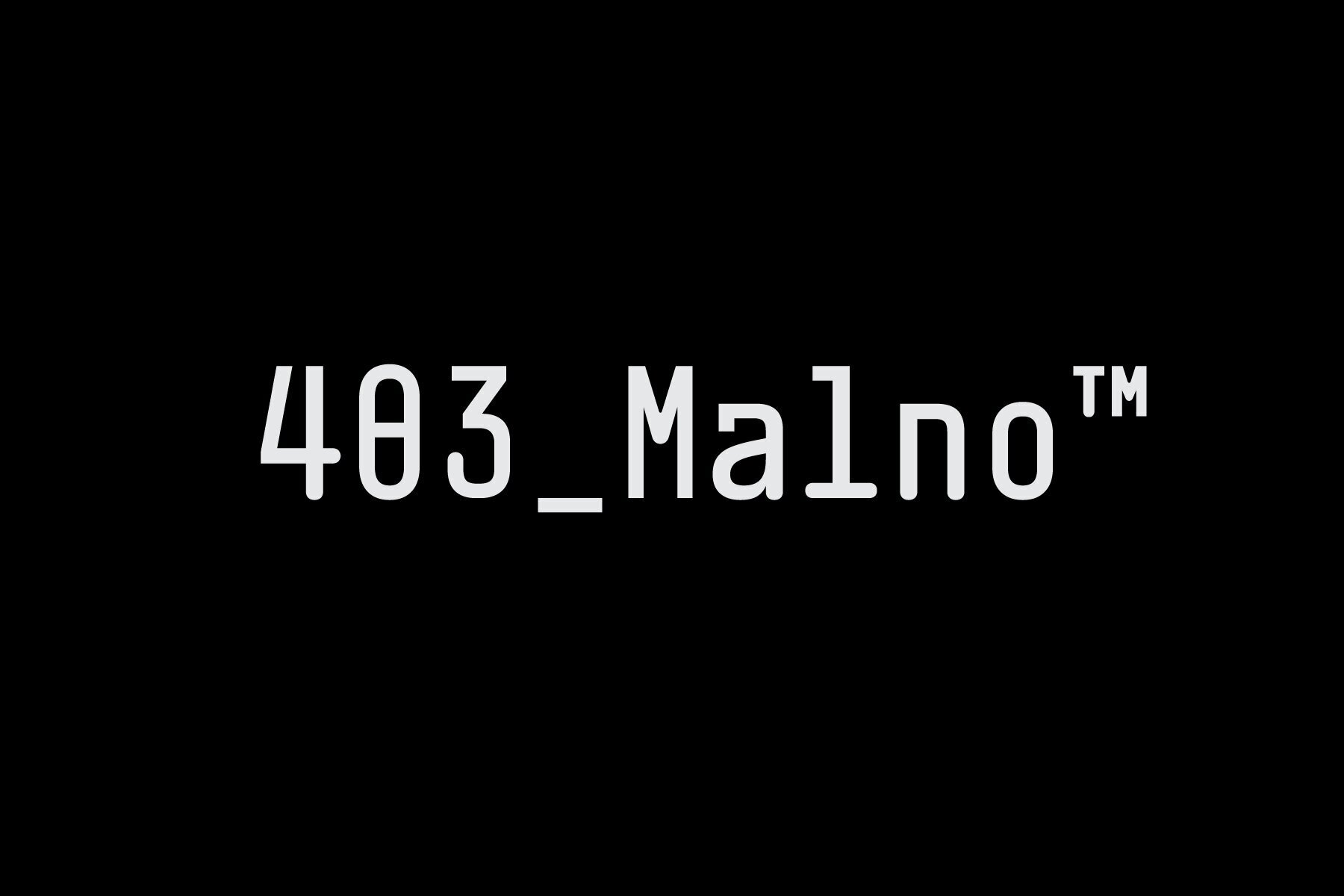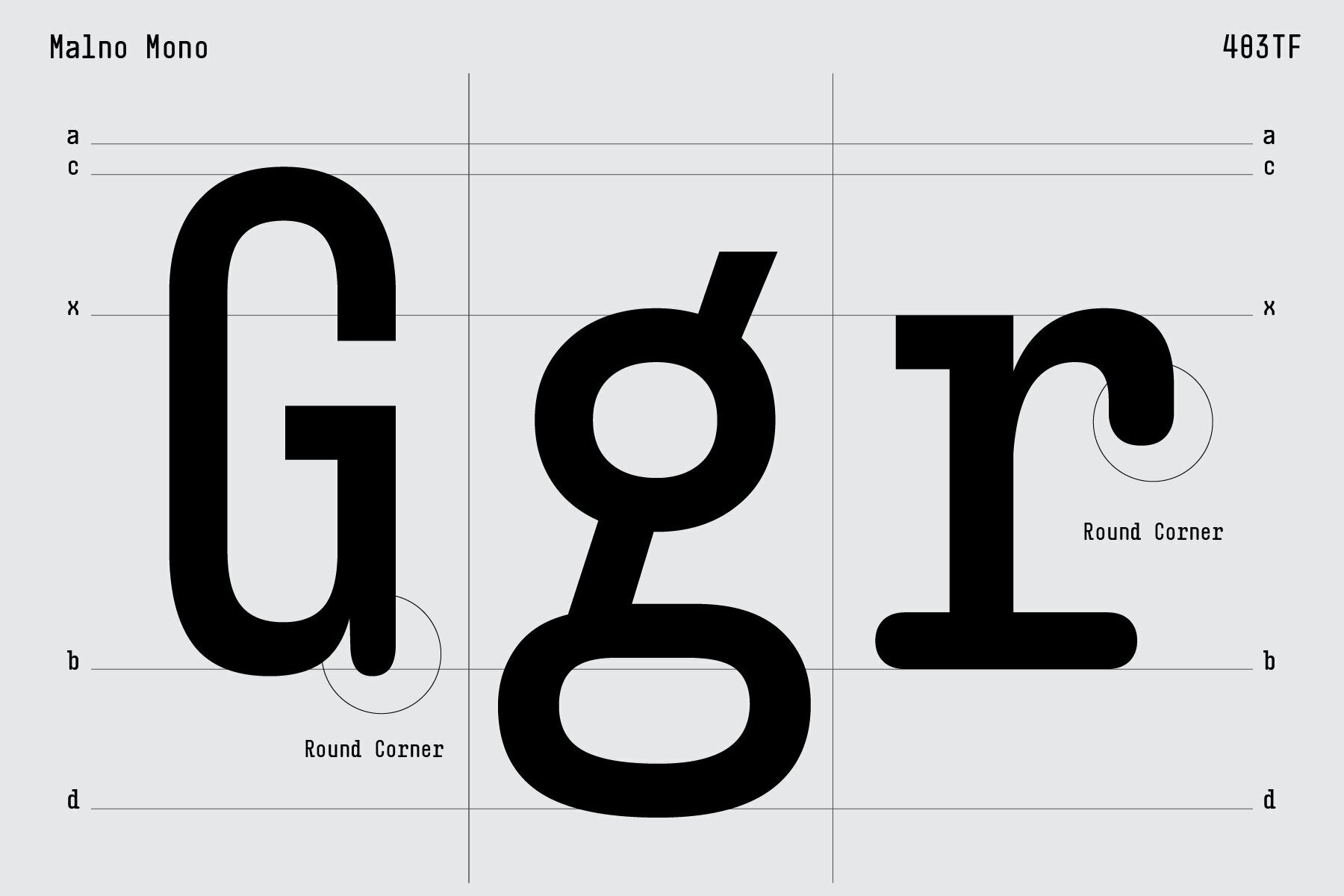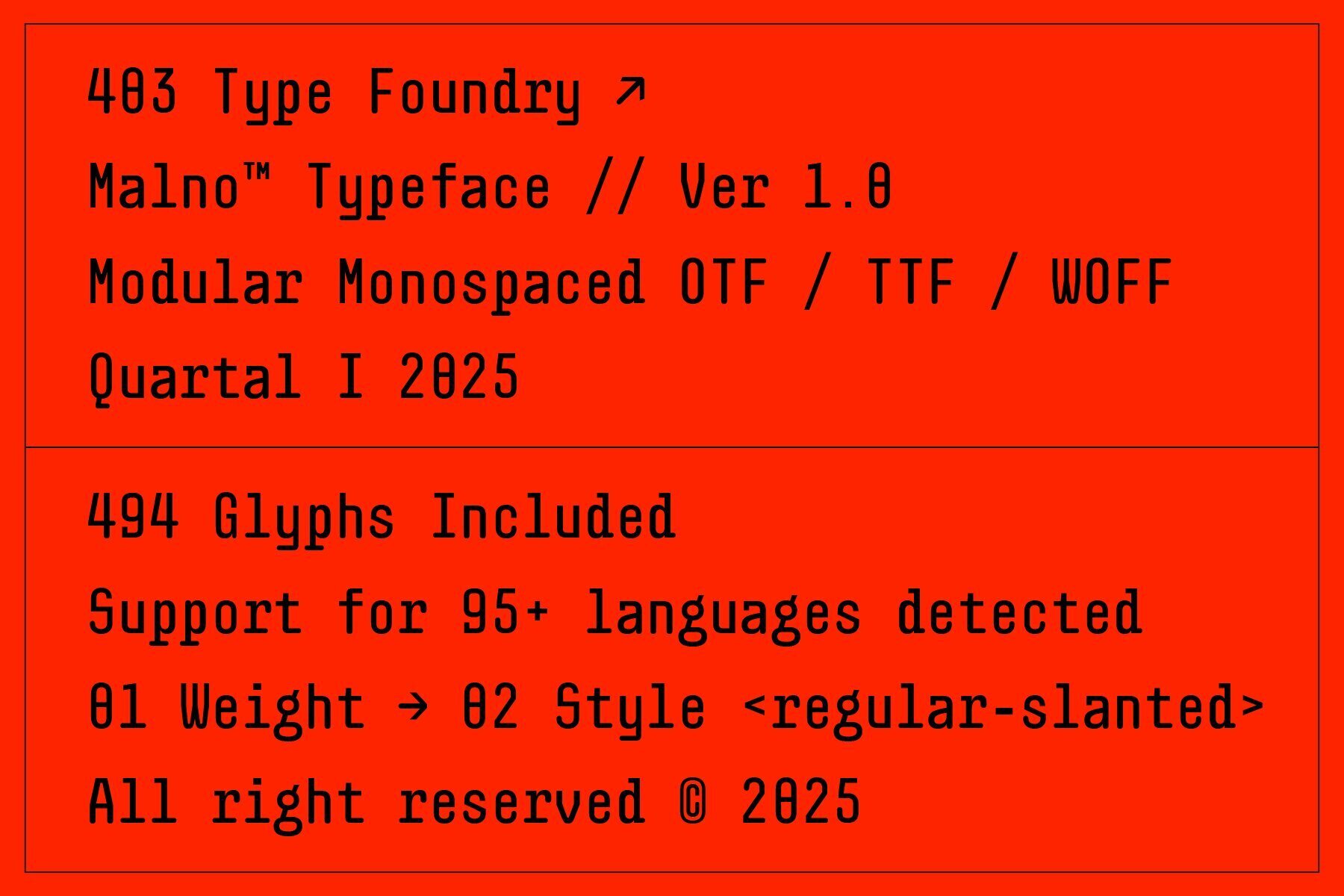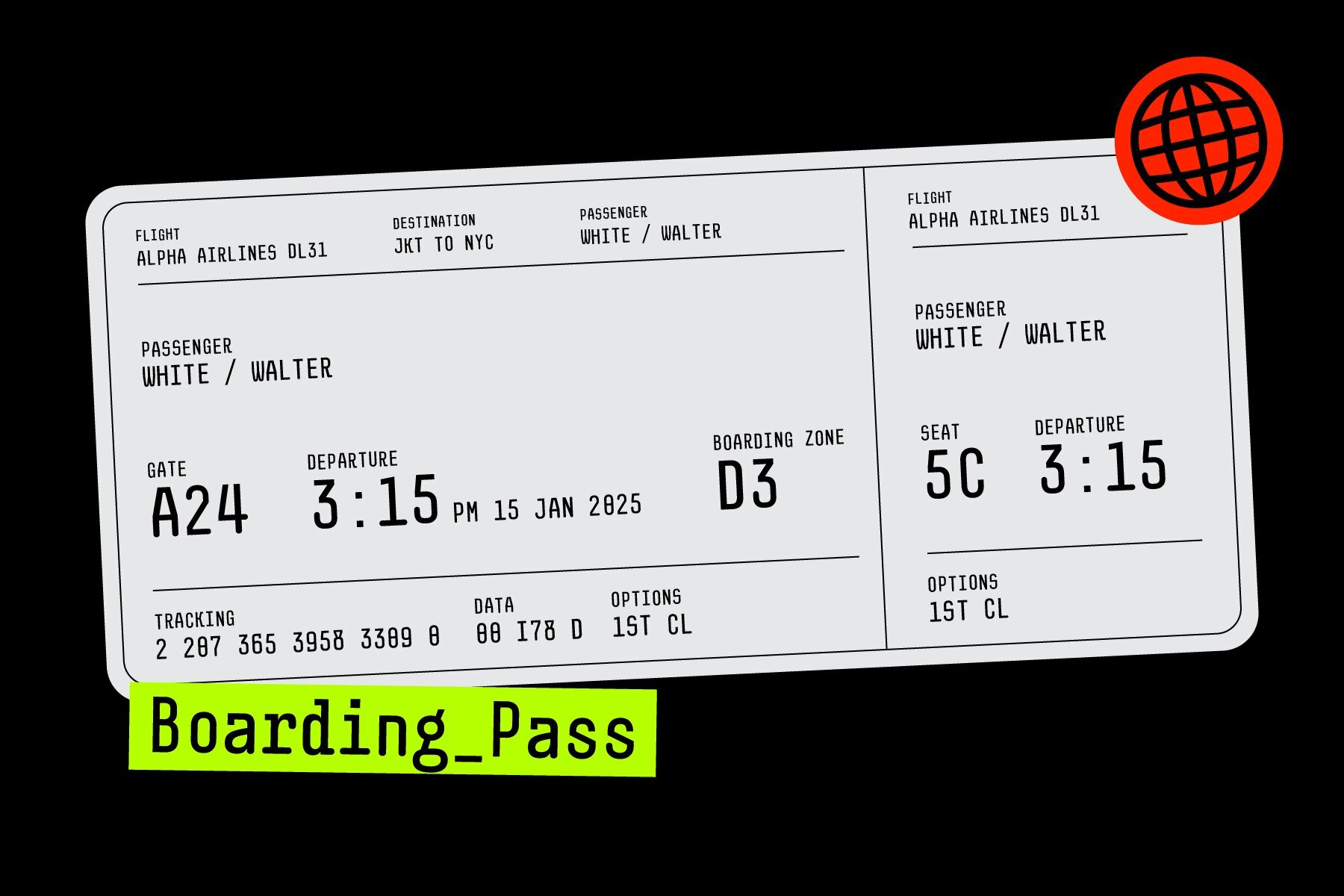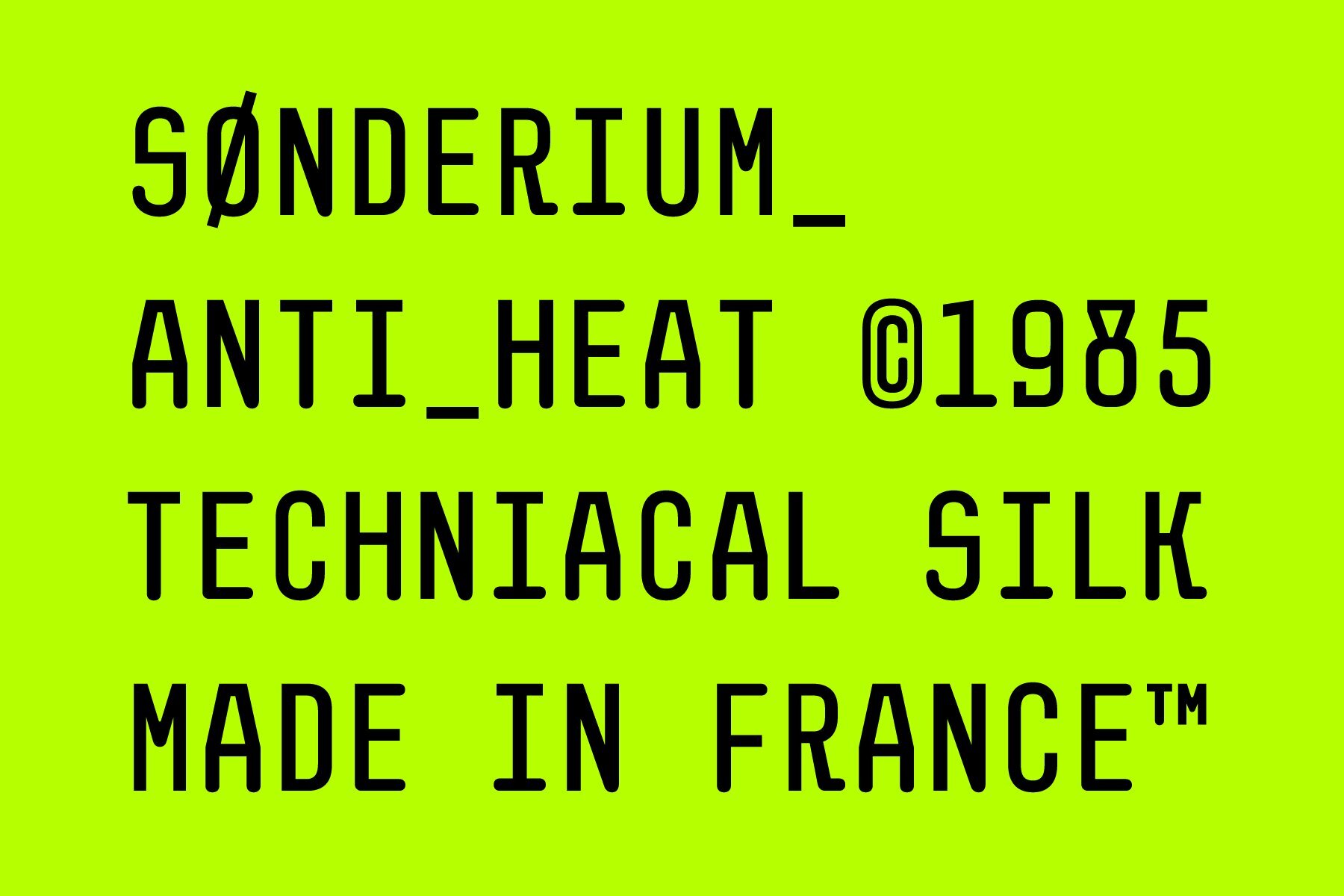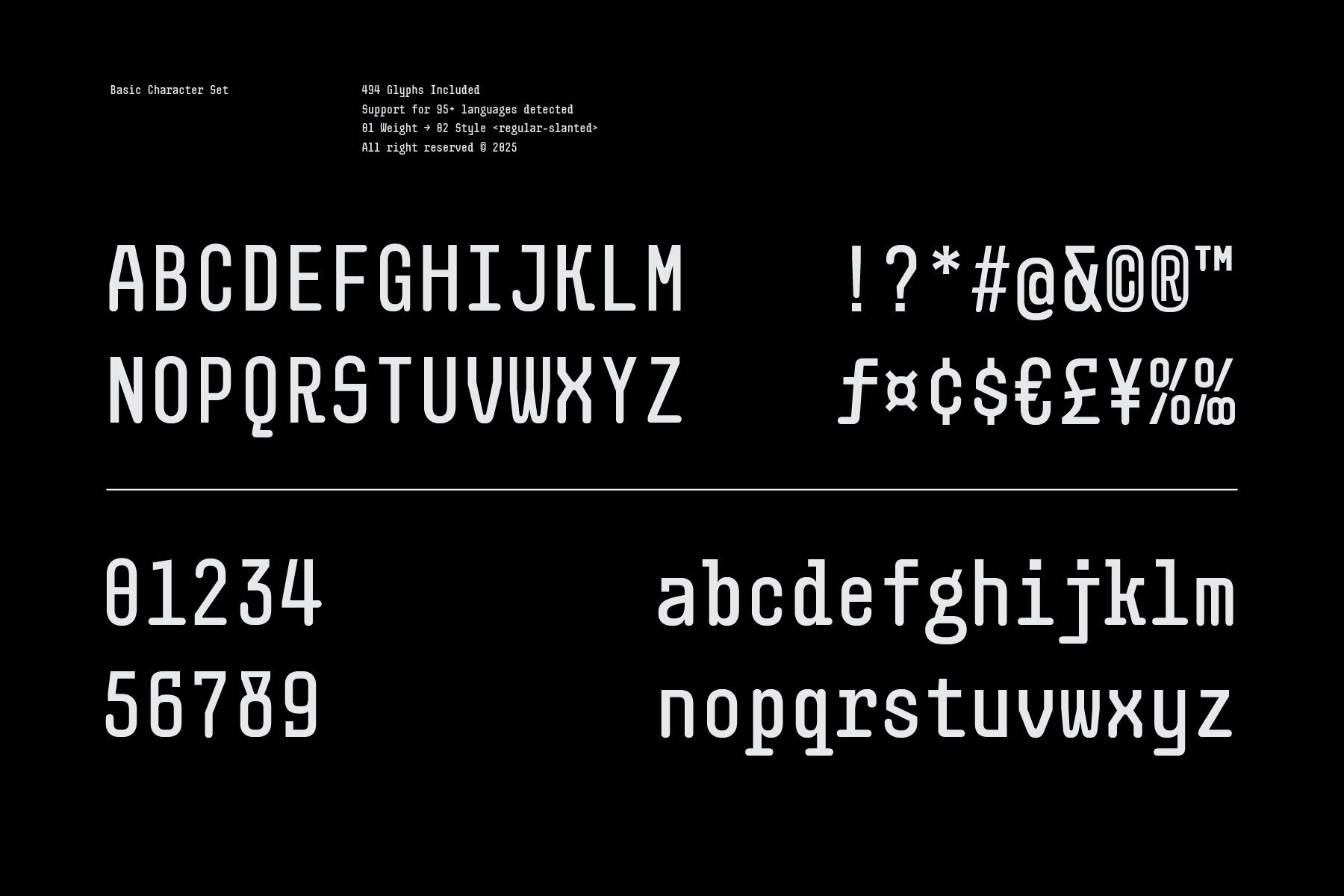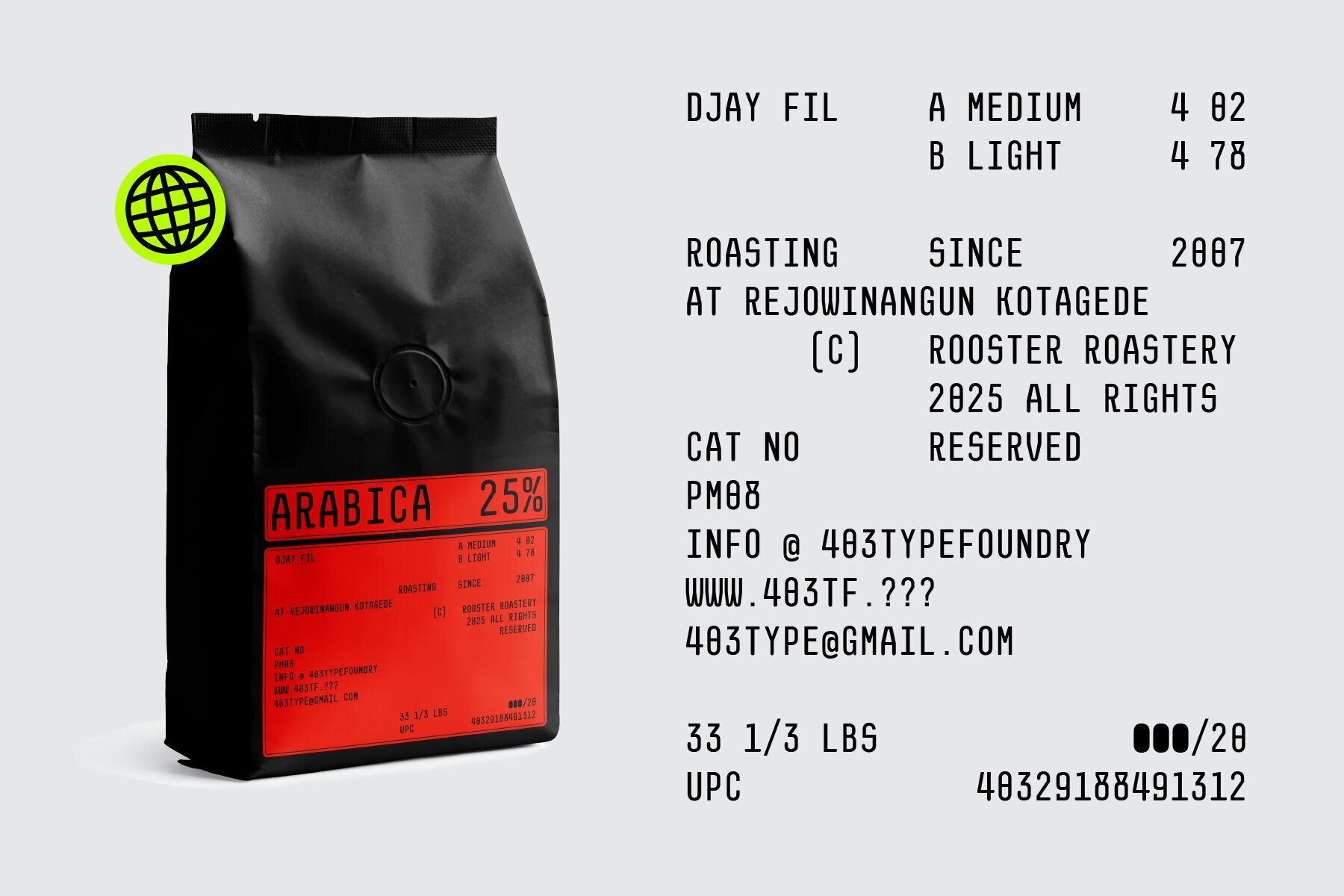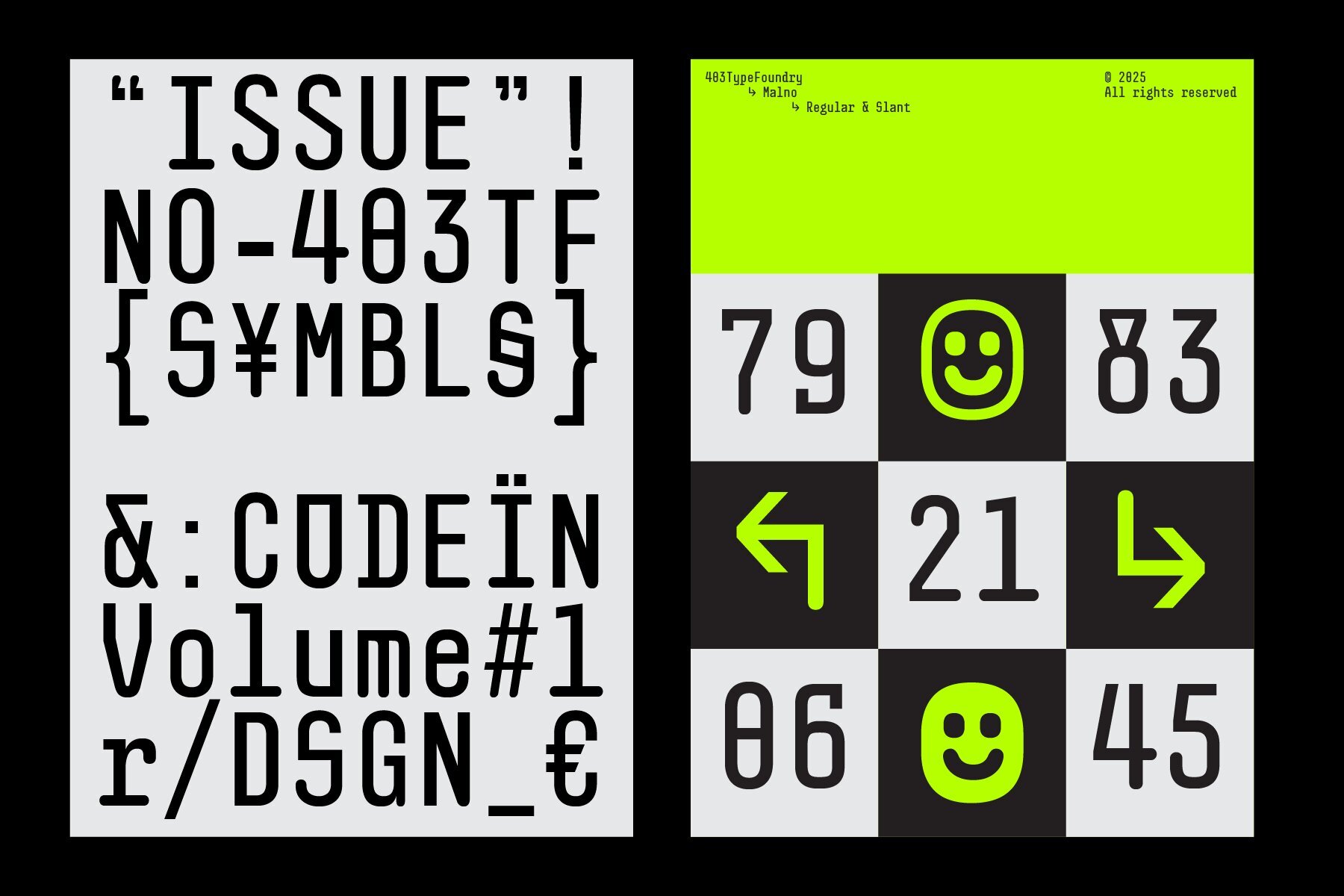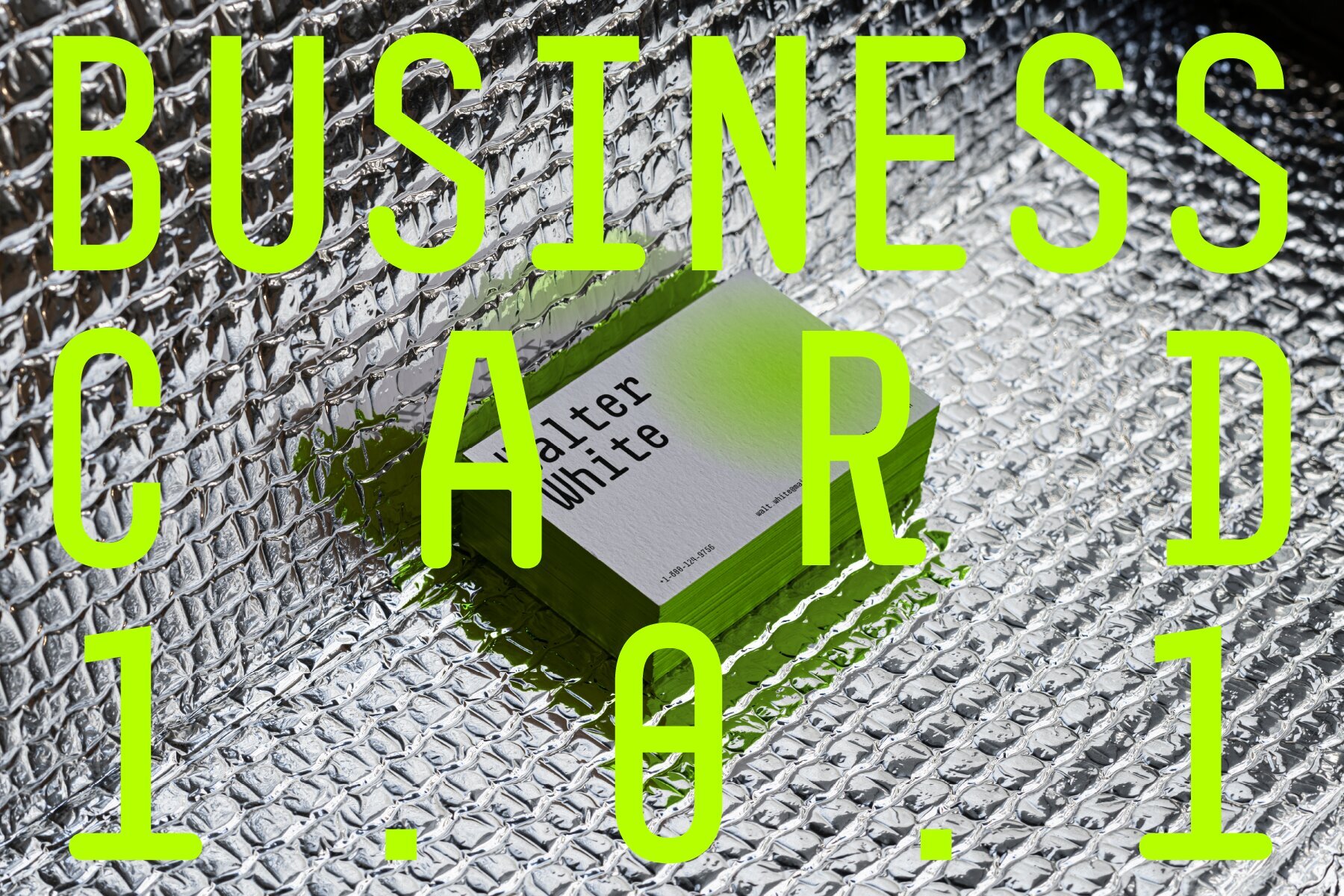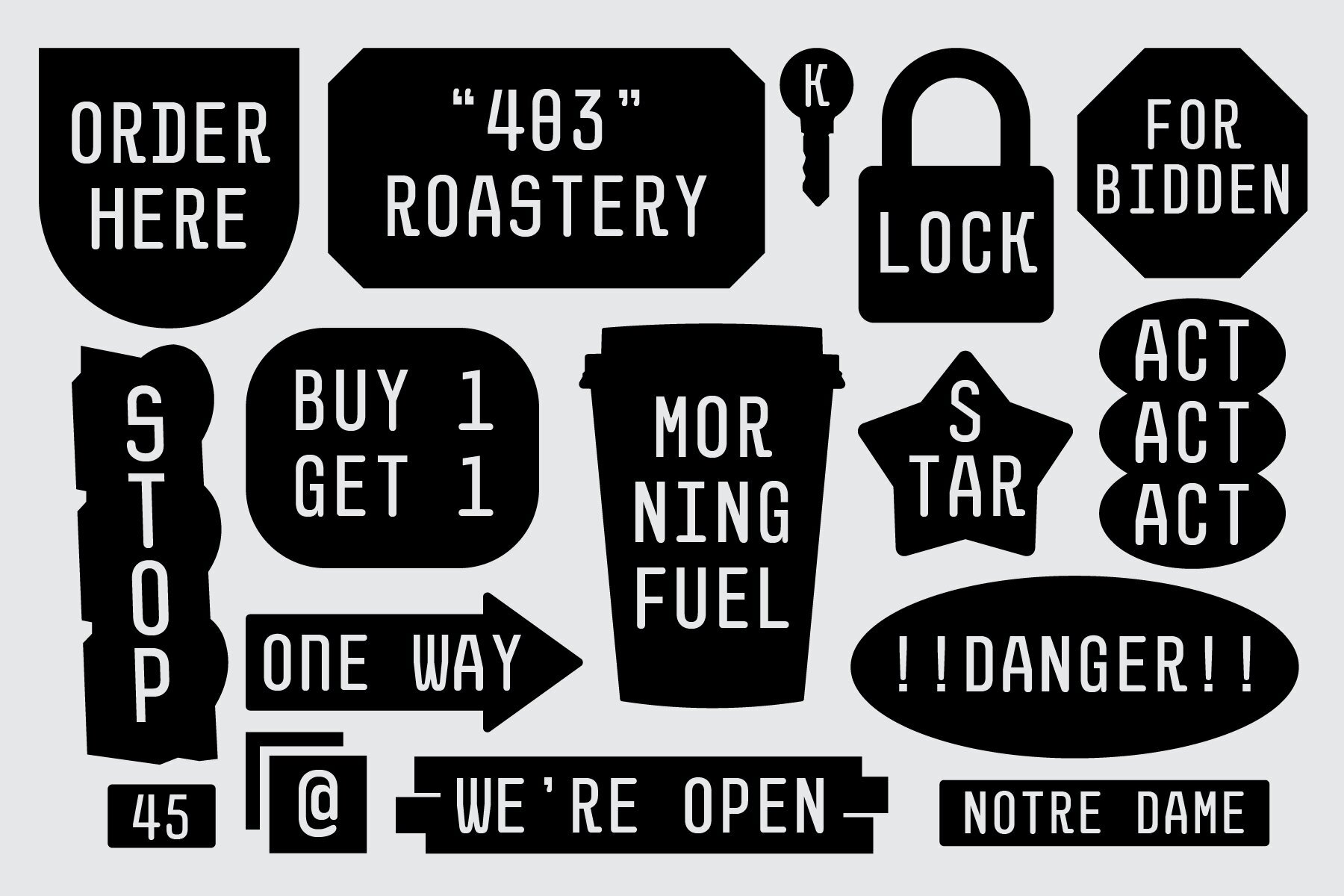
403 Malno Font
403 Malno Typeface is a painstakingly designed modular monospace font that strikes a balance between accuracy and adaptability. It is perfect for both technical and creative applications because of its simple, geometric structure, which is intended to be both useful and clear. With 494 glyphs and support for over 95 languages, 403 Malno provides outstanding usability across the globe. With two styles—Regular and Slanted—and one weight, the typeface offers versatility for a range of design requirements. It is ideal for both print and digital media because to its strong OpenType capabilities and availability in OTF, TTF, and WOFF formats.